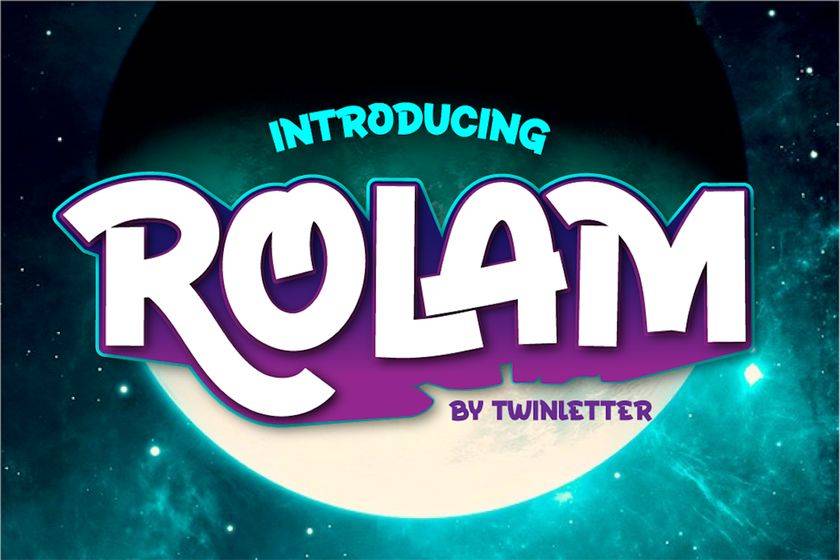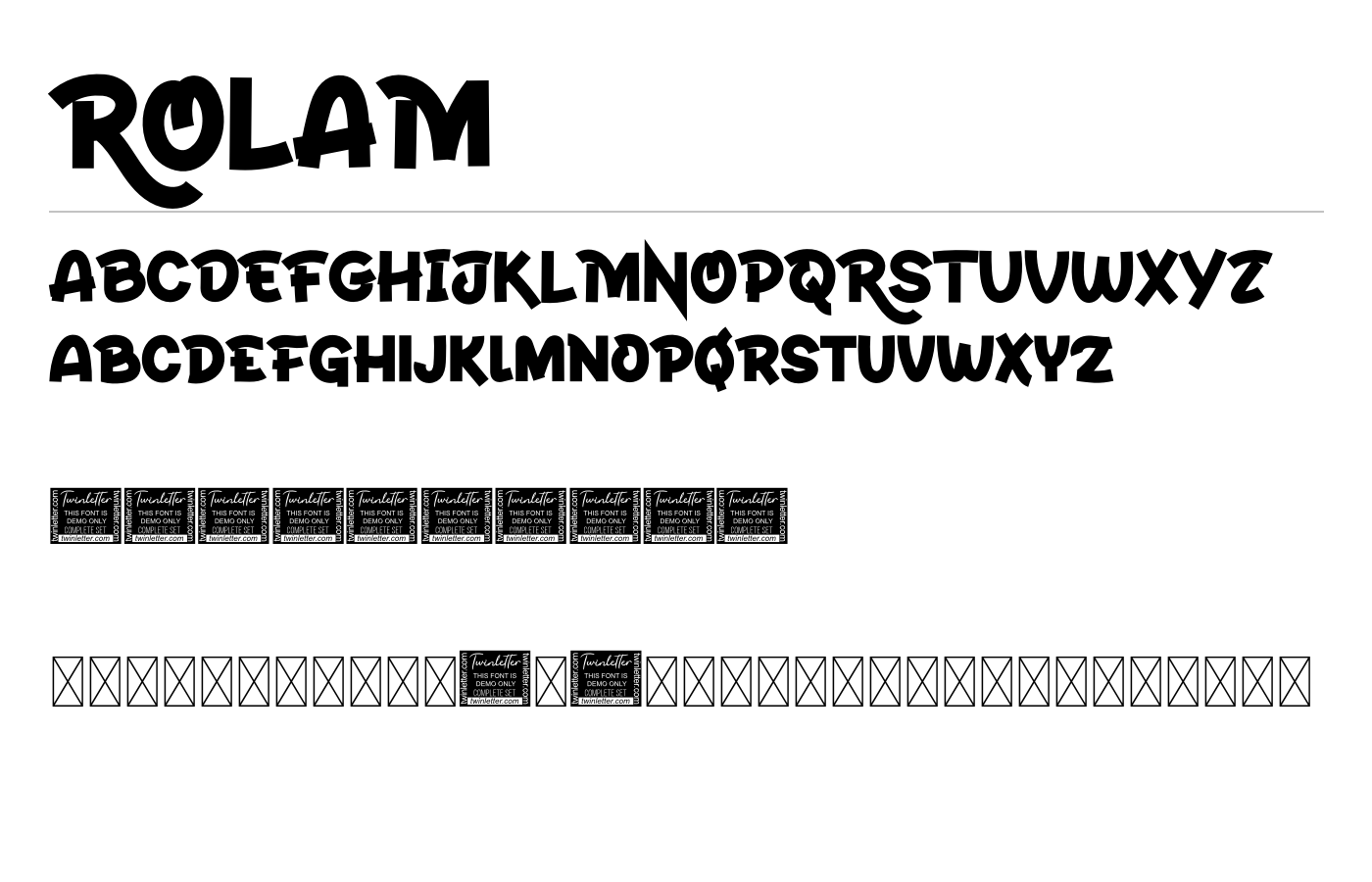
Rolam is a bold, playful display font with a hand-drawn, cartoonish style that captures attention through its quirky, irregular letterforms and strong personality. Its thick strokes and rounded edges give it an informal, friendly vibe, making it ideal for fun branding, posters, and headlines where a lively, casual tone is desired. This font works best in creative projects that seek to convey energy and approachability rather than formality.
Rolam Font
About Rolam Font
| Font family | Rolam Font |
| Designer | ROZI |